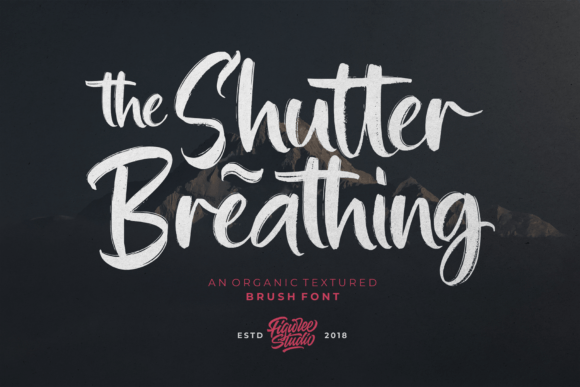
Journey into the realm of captivating typography with Shutter Breathing, an exceptional script font crafted to ignite your creativity. Its organic brush strokes, meticulously designed by figuree studio, infuse life and authenticity into your projects, making them shine like never before.
With Shutter Breathing, you hold the key to unlocking a world of endless possibilities. Craft eye-catching poster titles that command attention, leaving a lasting impression on your audience. Its natural and authentic look adds a touch of sophistication and charm to any design, whether it's a branding project, marketing material, or a heartfelt social media post.
Shutter Breathing is more than just a font; it's a versatile tool that adapts seamlessly to your creative vision. Its effortless flow and graceful curves bring a breath of fresh air to your designs, making them stand out from the mundane. Whether you're a seasoned designer or just starting your creative journey, Shutter Breathing will elevate your projects to new heights.
Benefits:
1. Enchanting organic brush strokes evoke a natural and authentic feel.
2. Perfectly suited for creating captivating poster titles that demand attention.
3. Versatile and adaptable, Shutter Breathing complements various design projects effortlessly.
4. Its unique charm adds a touch of elegance and sophistication to your creations.
5. Easy to use, even for beginners, Shutter Breathing empowers you to create stunning designs with ease.